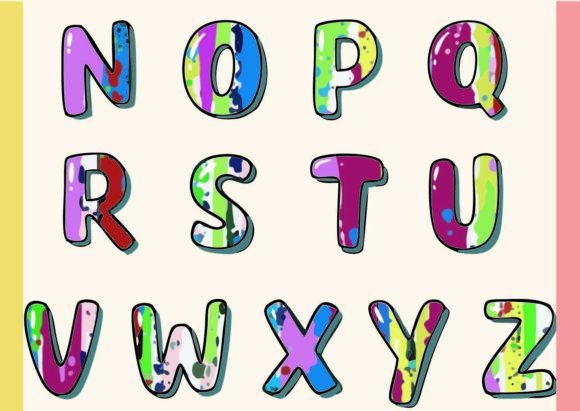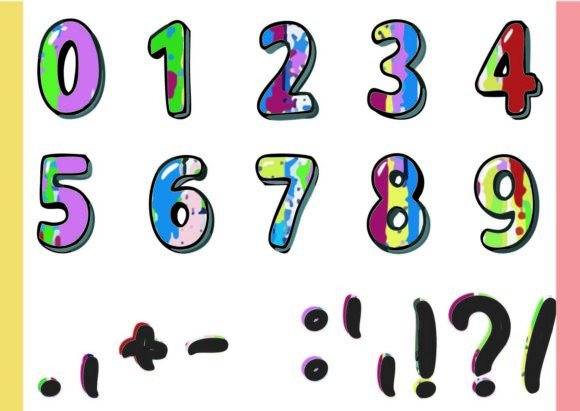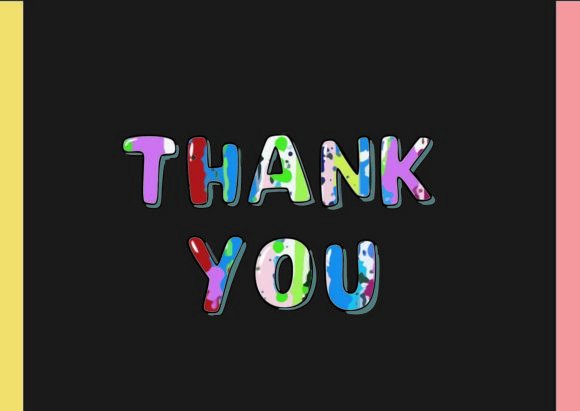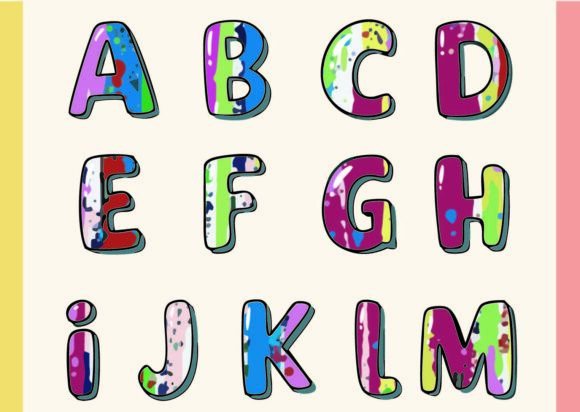
Introducing Heidi Font: A Colorful Heaven for Designers and Crafters
Are you tired of using the same old fonts for your designs? Look no further! Heidi Font is a game-changing, color font that will take your typography to the next level. With its unique and complex sets of paths and connections, each glyph is like a miniature painting, adding a touch of artistry to your work.
What makes Heidi Font special?
Heidi Font is a color font, specifically designed as an Opentype-SVG file. This means that every single glyph has a different set of colors, making it a true masterpiece. If you look closely at the glyphs, you’ll notice the intricate details and connections that make each one a miniature work of art. Whether you’re a designer, crafter, or simply someone who appreciates beautiful typography, Heidi Font is sure to impress.
With Heidi Font, the creative possibilities are endless. Imagine being able to add a pop of color and personality to your designs, crafts, and projects. Whether you’re creating greeting cards, invitations, or social media graphics, this font is sure to make your work stand out. The complex sets of paths and connections in each glyph also make it perfect for use in cutting files, vinyl designs, and other craft projects.
• Experiment with different colors and combinations to find the perfect look for your project.
• Use the font in conjunction with other design elements, such as images or textures, to add depth and interest.
• Take advantage of the font’s compatibility with cutting software, such as Silhouette, to create intricate designs and shapes.
• Don’t be afraid to get creative and try new things – the possibilities are endless with Heidi Font!
• Every single glyph has a different set of colors
• Complex sets of paths and connections in every glyph
• Perfect for designers, crafters, and anyone who loves beautiful typography